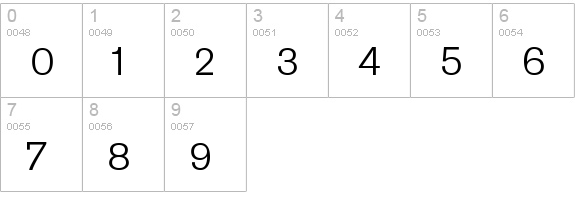
Supria Sans Light is a refined, elegant variant in the Supria typeface family \xE2\x80\x94 well suited to elegant body text, refined sub-headings, and luxury branding.
Supria Sans Light is a modern and elegant font that exudes sophistication and style. With its clean lines and subtle curves, this typeface is perfect for creating a sleek and professional look in your designs. The light weight of the font adds a delicate touch, making it ideal for conveying a sense of refinement and grace. What sets Supria Sans Light apart is not only its aesthetic appeal but also its versatility. Whether you are working on branding projects, editorial designs, or web layouts, this font will bring a polished and contemporary feel to your work. And the best part? Supria Sans Light is available for free download at FontsMarket.com. So you can easily access this high-quality font and enhance your projects with its timeless beauty. Experience the elegance of Supria Sans Light today and elevate your designs to new heights.